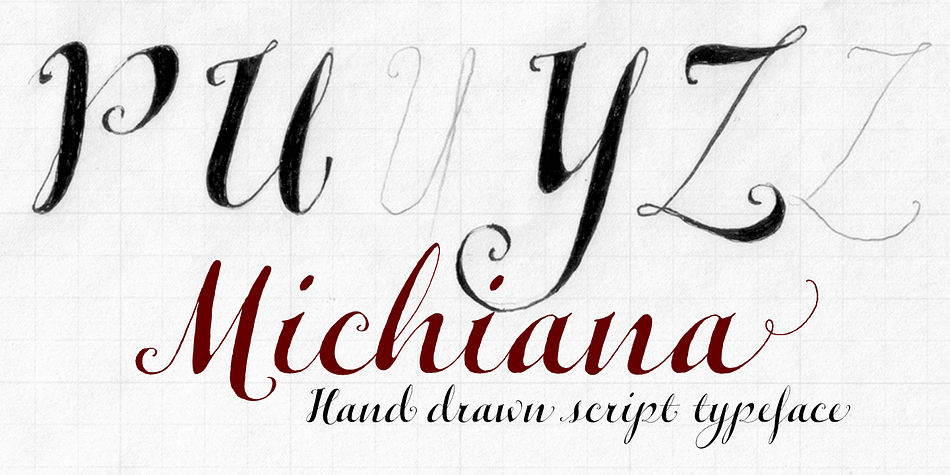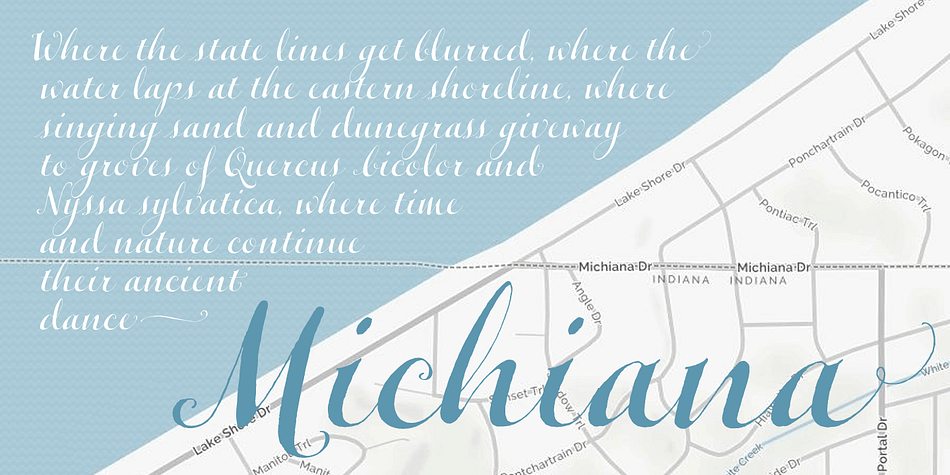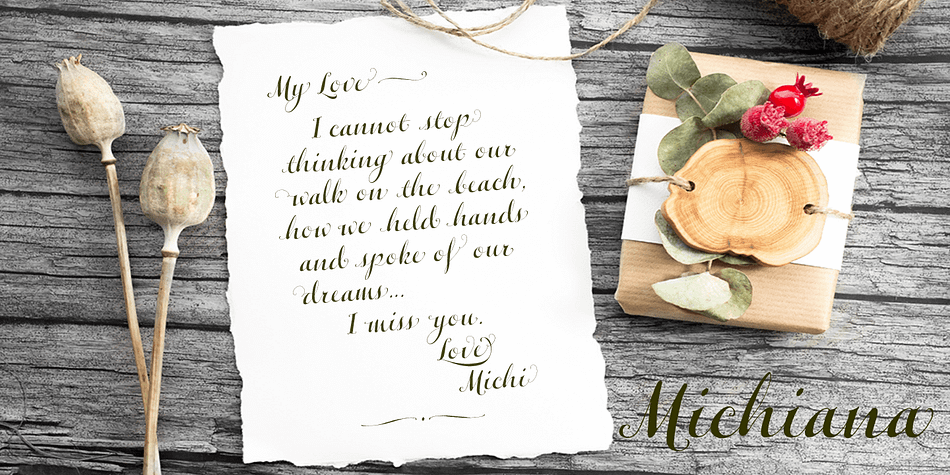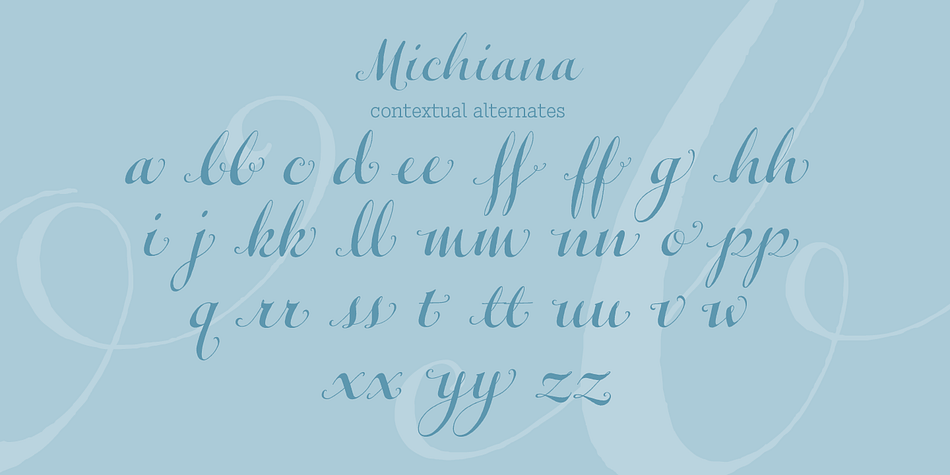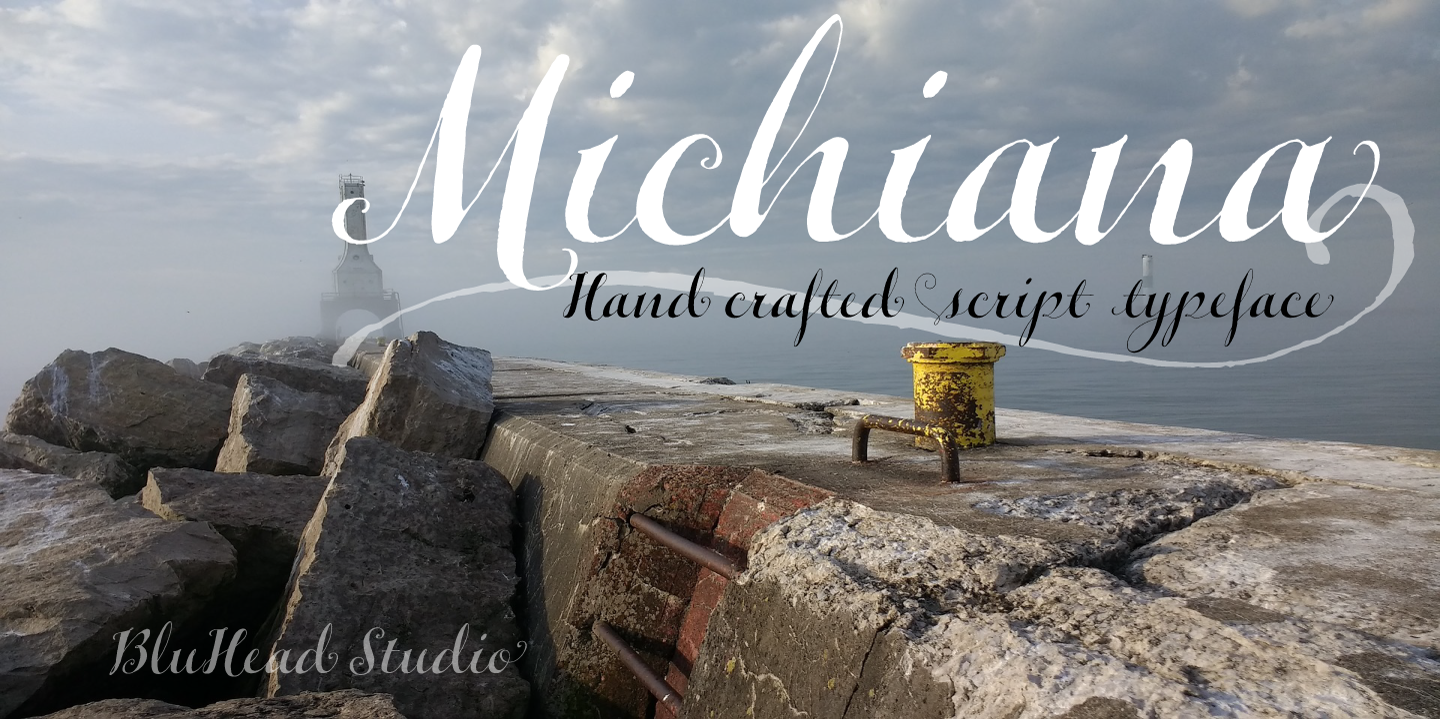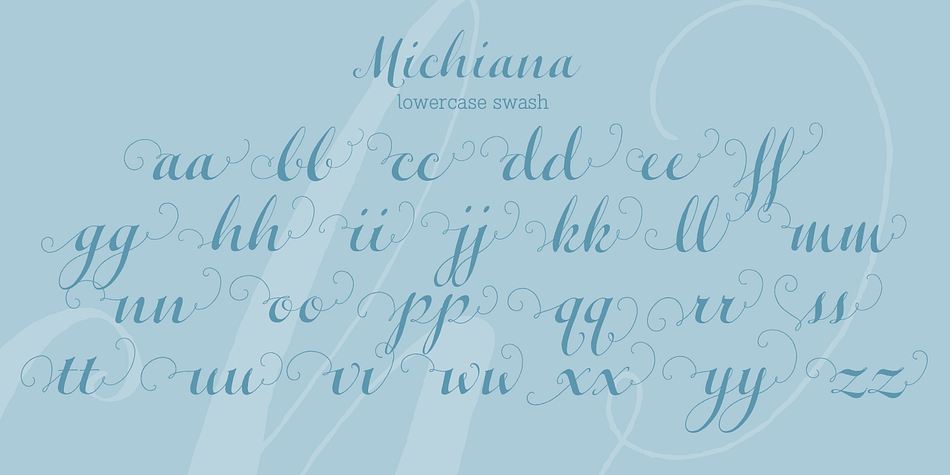
Designed by James Lyles, Michiana Pro is a script and modern calligraphy font published by BluHead Studio.
Michiana Pro is my new, hand-crafted connecting script! I’ve been hand lettering cards and envelopes to my wife and family in this type style for years and decided it was time to make a font based on it. I typically start with a single thin stroke for each letter, then build up the weight of the heavy stroke, so there ends up being a lot of charming variations in terms of style and color. The overall finish is rough, yet friendly. Perfect for invitations, place cards, love notes, and with its large x-height, it sets nicely for text.
I grew up running around the dunes and beaches along Lake Michigan in northwest Indiana, and I think the shoreline and dune grass has inspired my aesthetic. Michiana Pro takes the name from a small area along the lake between the Indiana and Michigan state lines. There are a lot of nice, modest homes nestled in the duneland forests. Thinking about what it’s like back there, it’s like having a bowl of steaming hot comfort food. So I hope Michiana Pro feels that way to you too.
Michiana Pro features include:
+ extended character set for Western European language support
+ 1,205 glyphs
+ lowercase beginning and ending swashes
+ contextual initial and final letterforms
+ alternates for L, R, Z, f, g, p, t and y
+ 140+ ligatures
+ superior and inferior figures for unlimited fractions
+ ordinals (st, nd, rd, th)
+ 4 ornamental swashes